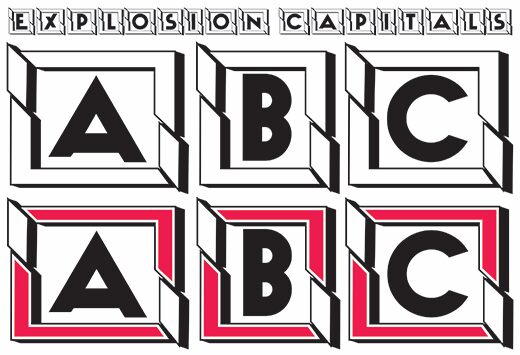
Explosion Capitals font is a decorative typeface designed by Vladimir Nikolic.
Overlap (combine) small caps and large caps letters for the desirable results!
Explosion Capitals